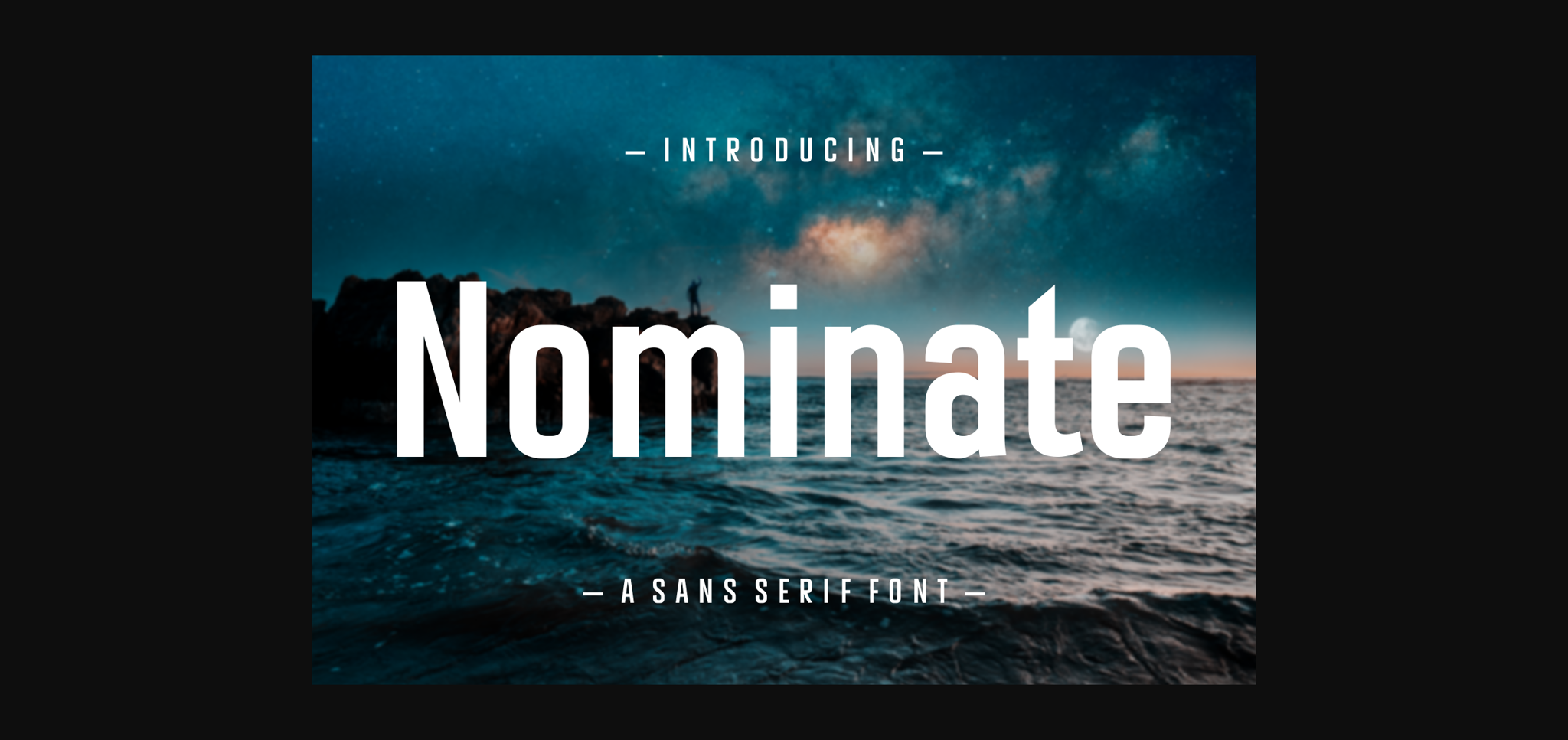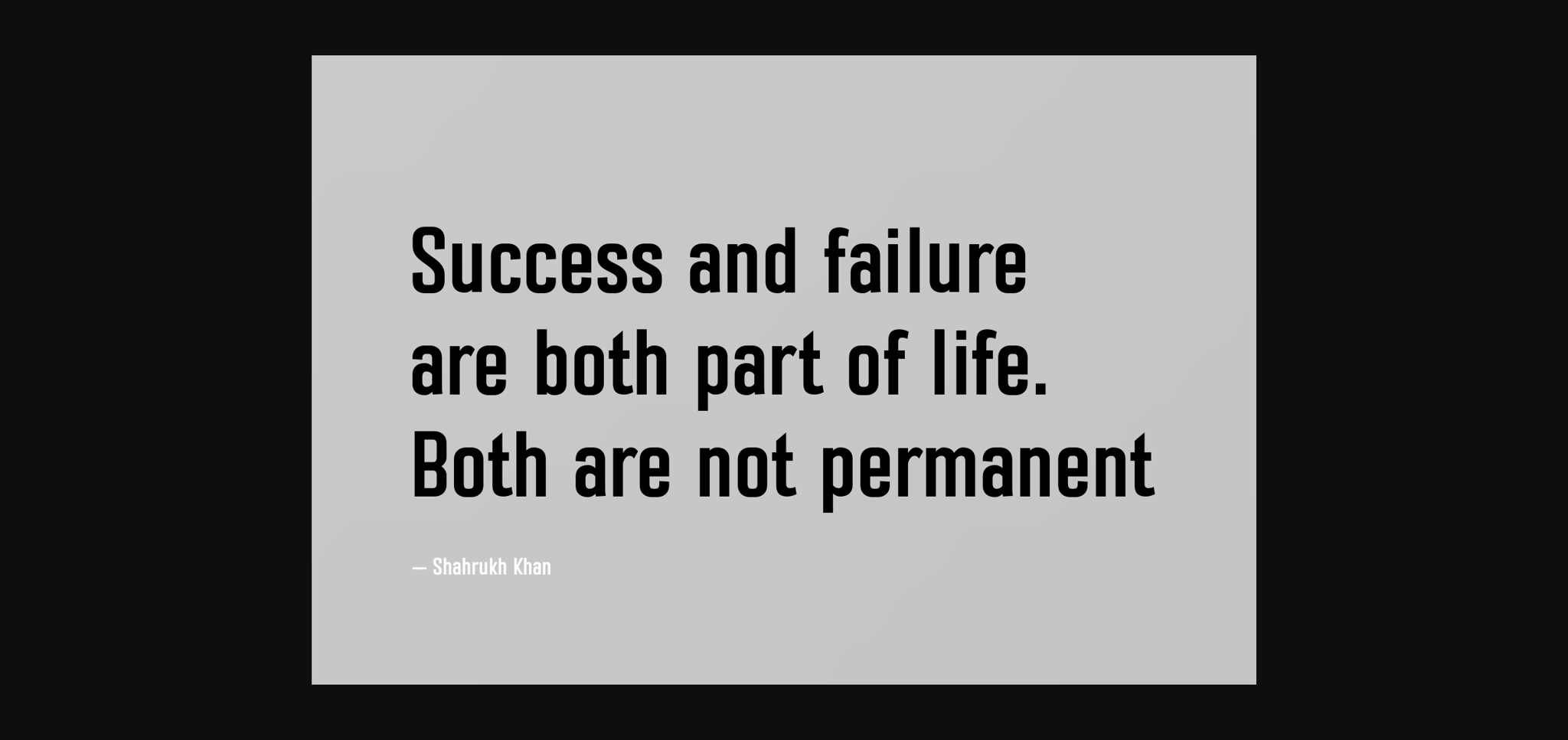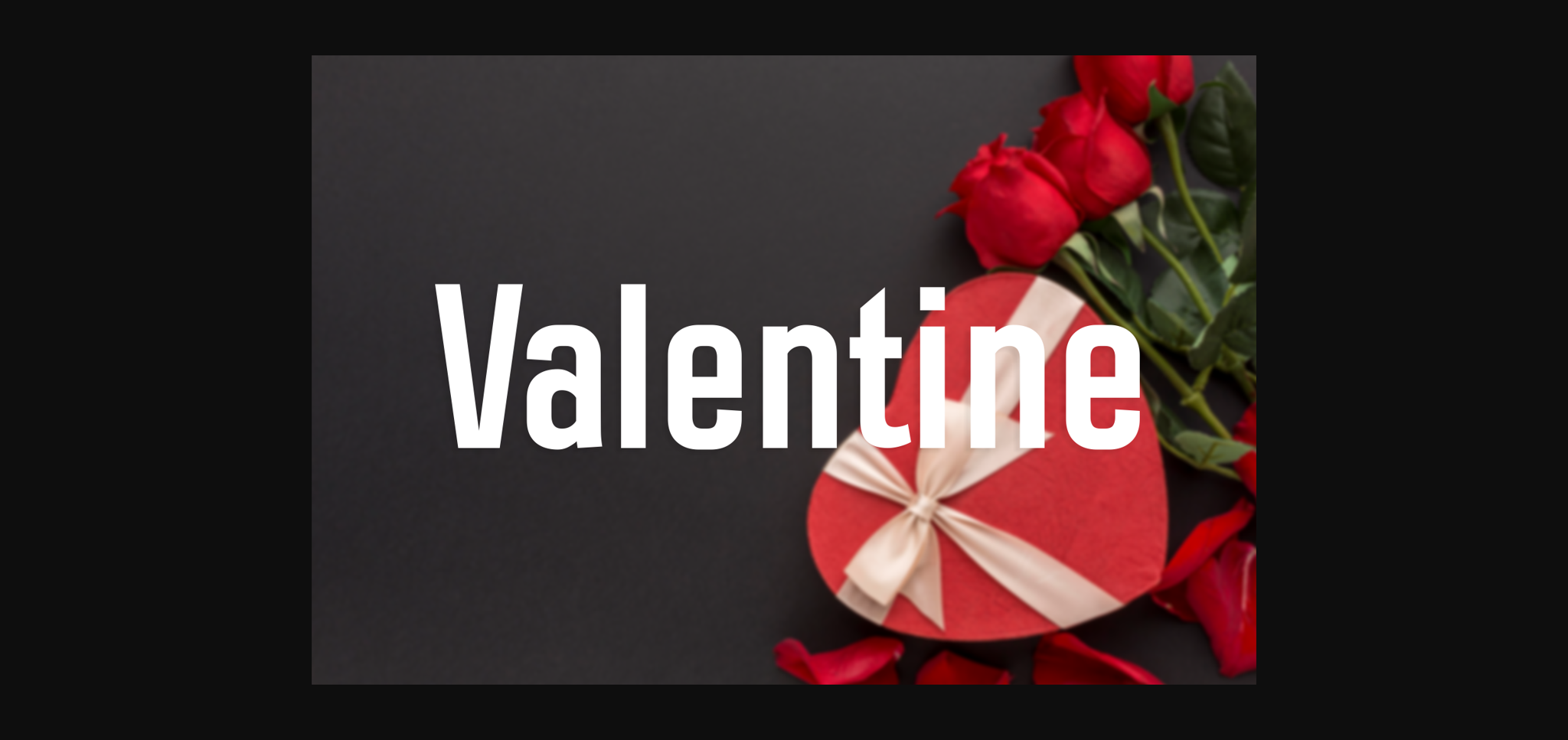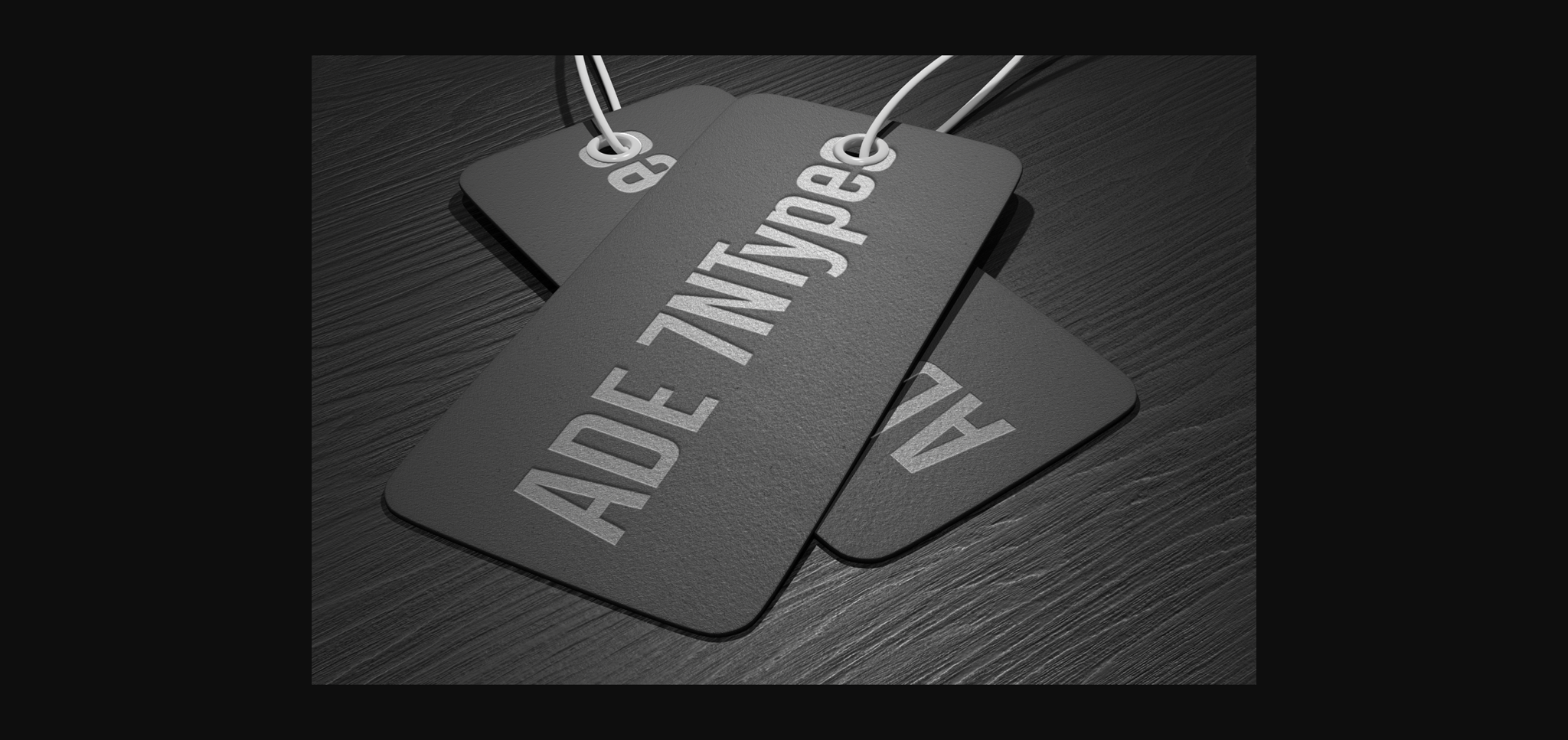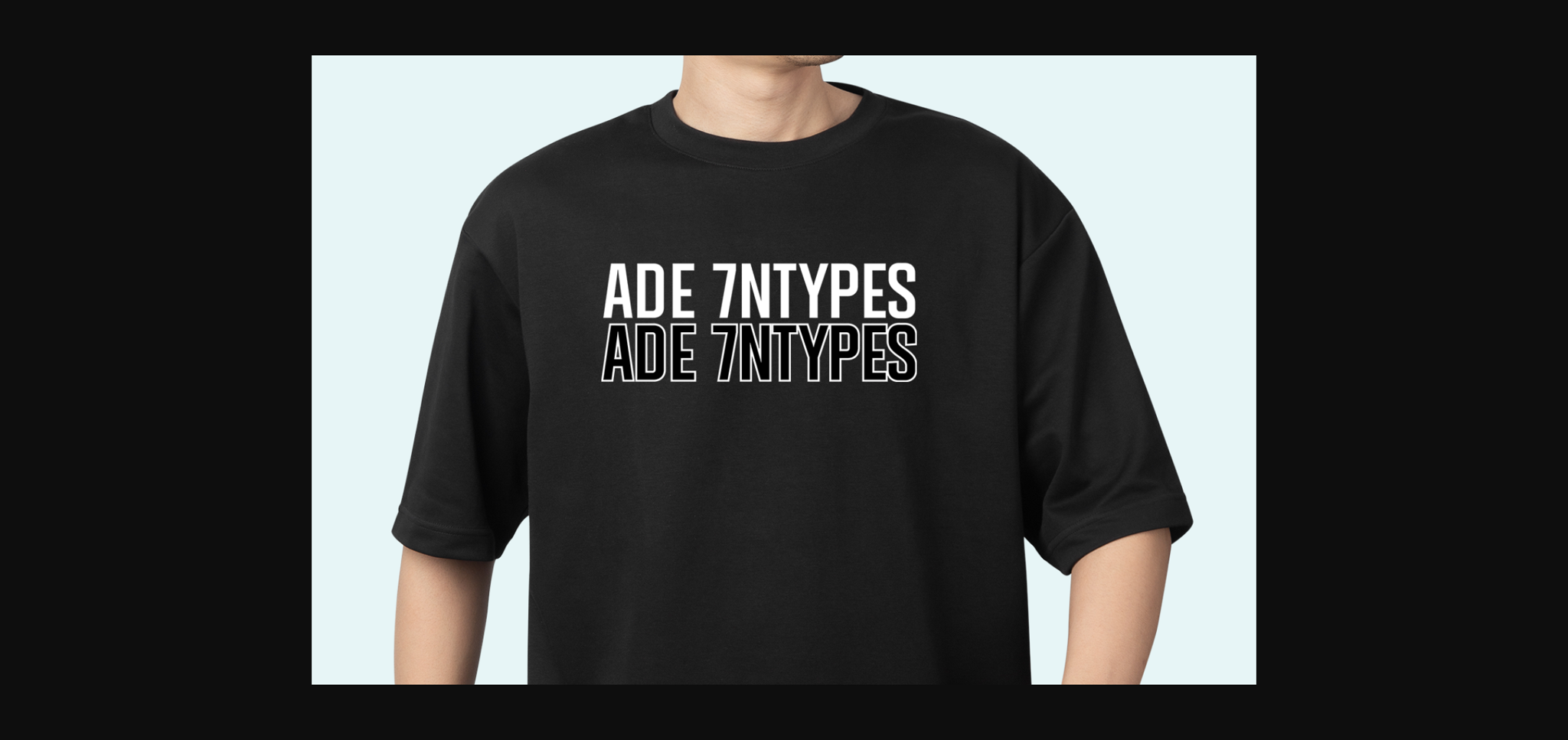
About Nominate Font
Nominate is a clean and straightforward sans-serif font. Its simplicity adds a touch of modernity to any project, making it versatile for various applications. Whether you’re creating a sleek logo or easy-to-read text, Nominate brings a crisp and contemporary style to your design. Perfect for a wide range of uses, Nominate combines simplicity and sophistication effortlessly.